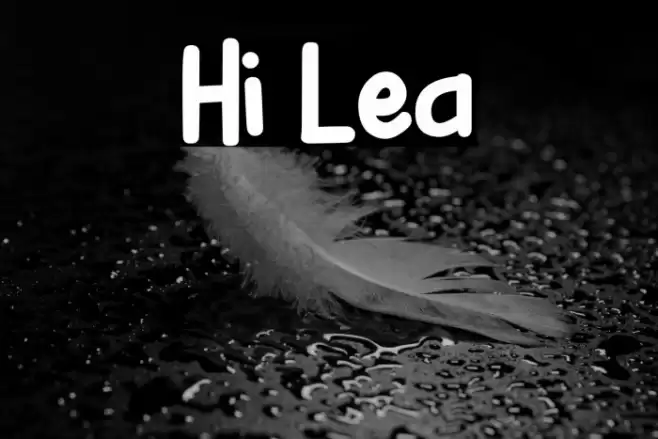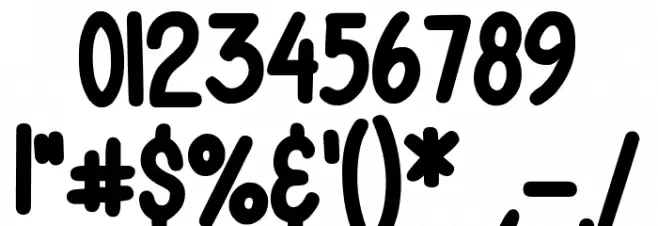
Hi Lea Font
Hi Lea Description
This playful and bold font features rounded edges and a hand-drawn aesthetic, giving it a friendly and approachable appearance. The characters are slightly irregular, adding to its whimsical charm. The uppercase and lowercase letters maintain a consistent style, with a slight tilt that enhances its casual feel. Numbers and special characters are designed to match the overall playful theme, making it versatile for creative projects. The font's thick strokes and rounded forms make it highly legible, even at smaller sizes, while its unique style ensures it stands out in any design.
A playful, bold font with rounded edges and a hand-drawn aesthetic from Uncategorized fonts.
- Proposed Projects: Ideal for children's books, playful branding, greeting cards, and social media graphics.
- Overall Style: Playful
- Use Case: Headlines, Logos, Social media graphics